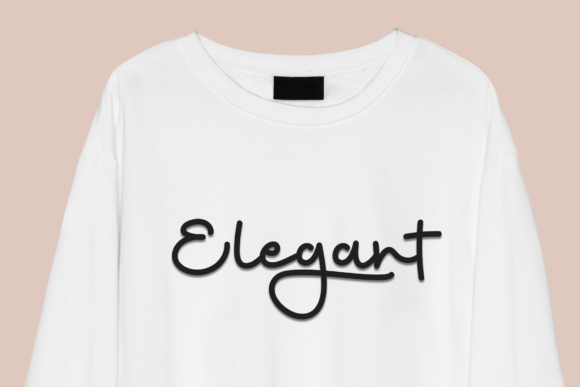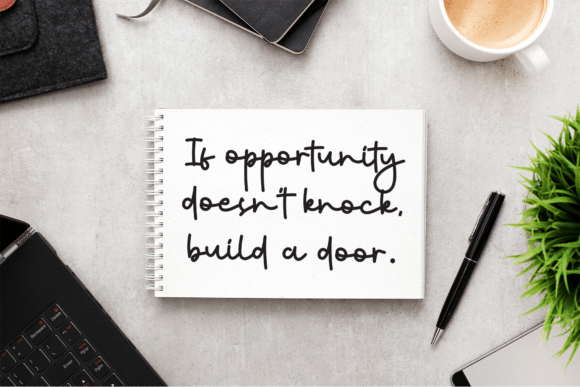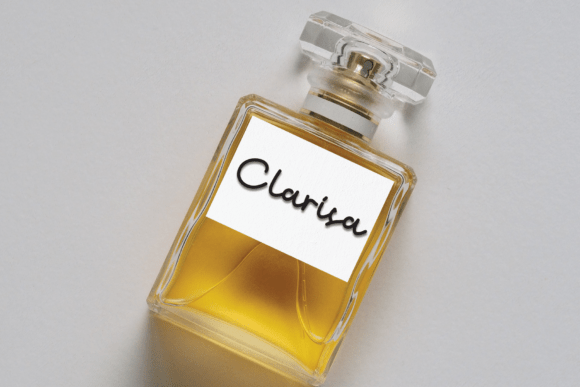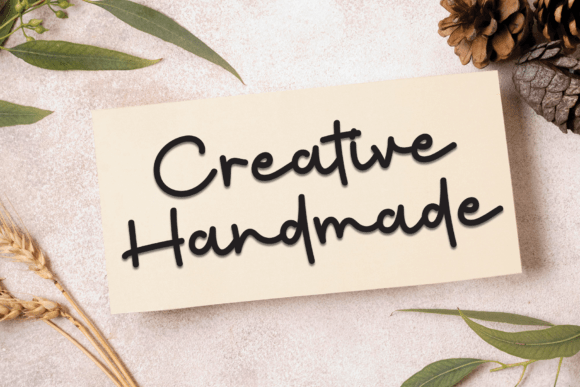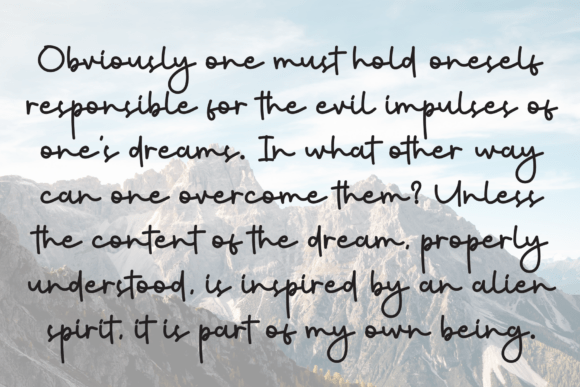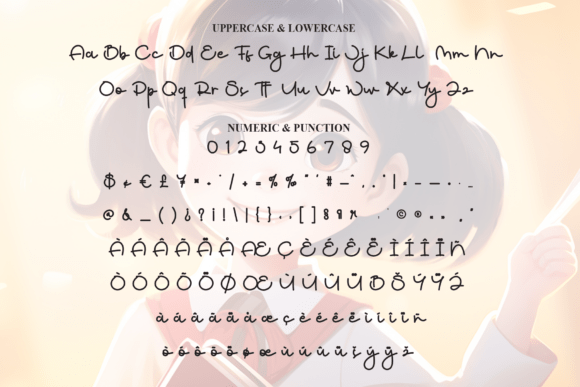
Cute Girl Font: The Perfect Choice for Playful and Modern Designs
Are you a designer or crafter looking for a font that exudes sweetness and style? Look no further than Cute Girl Font, a delightful handwritten font that’s perfect for kid-themed designs, greeting cards, personal branding, and social media posts. In this article, we’ll dive into the features and benefits of Cute Girl Font, and explore how it can elevate your creative projects.
What is Cute Girl Font?
Cutegirl is a sweet and stylish handwritten font with a playful, modern aesthetic. Its unique design features a long crossbar stroke, giving it a youthful and energetic personality. This font is perfect for designers and crafters who want to add a touch of whimsy and fun to their projects.
Key Features of Cute Girl Font
- Playful and modern aesthetic: Cute Girl Font has a fresh and youthful vibe that’s perfect for kid-themed designs and social media posts.
- Long crossbar stroke: The font’s distinctive long crossbar stroke adds a touch of elegance and sophistication.
- Handwritten style: Cute Girl Font has a warm, handwritten feel that’s perfect for creating personal and engaging designs.
- Versatile: This font is suitable for a wide range of projects, from greeting cards and invitations to personal branding and social media graphics.
Uses for Cute Girl Font
Cute Girl Font is a versatile font that can be used in a variety of creative projects. Here are some ideas to get you started:
- Kid-themed designs: Create adorable posters, flyers, and brochures for kids’ parties, events, and activities.
- Greeting cards: Design sweet and stylish greeting cards for special occasions like birthdays, holidays, and weddings.
- Personal branding: Use Cute Girl Font to create a unique and memorable brand identity for your business or personal projects.
- Social media posts: Add a playful touch to your social media posts and stories with Cute Girl Font.
Why Choose Cute Girl Font?
With so many fonts available, why choose Cute Girl Font? Here are just a few reasons:
- Unique and distinctive: Cute Girl Font stands out from the crowd with its playful and modern aesthetic.
- Easy to read: Despite its playful style, Cute Girl Font is easy to read and understand, making it perfect for body text and headlines.
- Customizable: Experiment with different colors, sizes, and styles to make Cute Girl Font your own.
Tips for Using Cute Girl Font
Here are some tips for getting the most out of Cute Girl Font:
- Pair with bold fonts: Combine Cute Girl Font with bold, sans-serif fonts for a striking contrast.
- Experiment with colors: Try out different colors and gradients to add depth and interest to your designs.
- Use in combination with graphics: Cute Girl Font pairs perfectly with illustrations, icons, and graphics – try combining them for a playful look.
Cute Girl Font is a sweet and stylish handwritten font that’s perfect for designers and crafters looking to add a playful touch to their projects. With its unique features, versatility, and ease of use, it’s an excellent choice for kid-themed designs, greeting cards, personal branding, and social media posts. So why not give Cute Girl Font a try and see how it can elevate your creative projects?